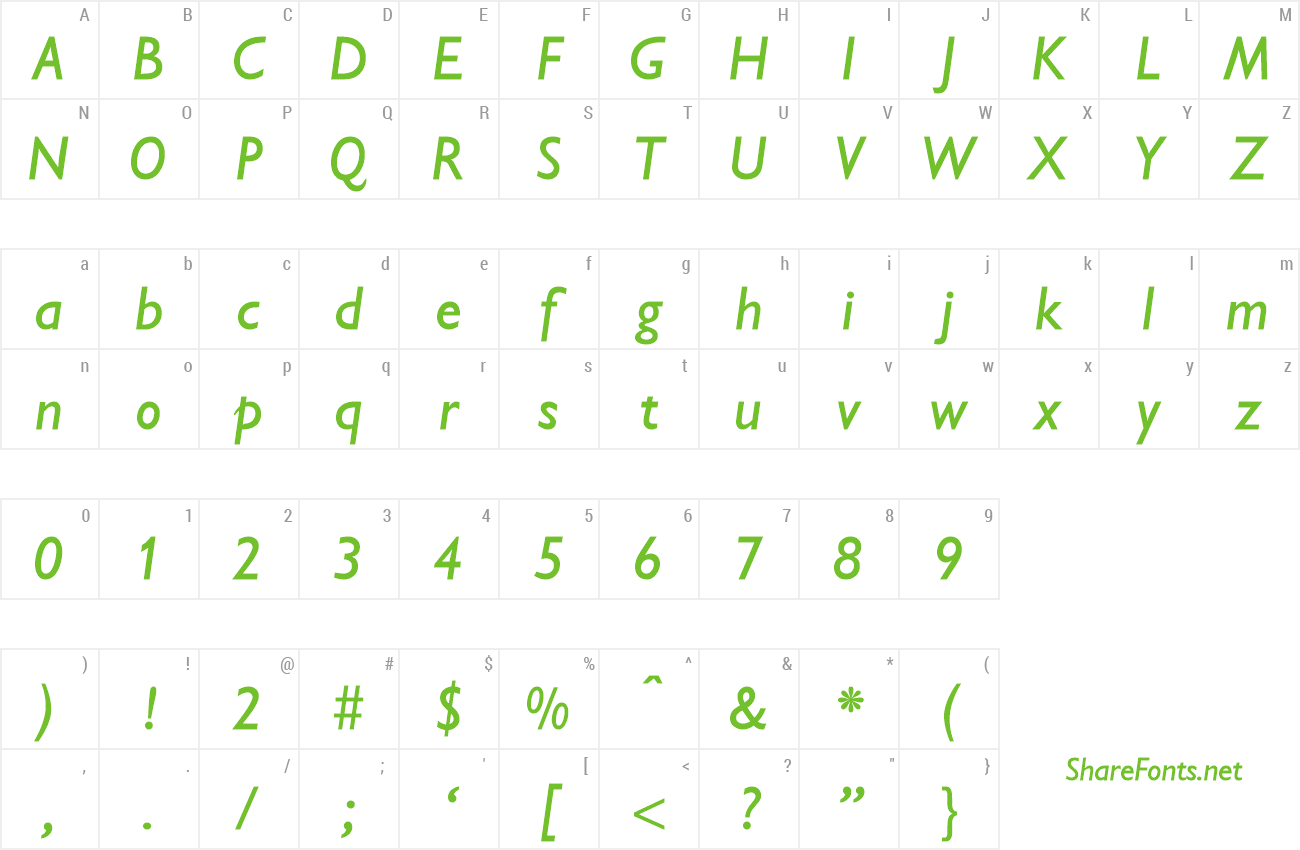
Download Gibson Font - Oct 12, 2022 format : Click on the below link to download its free version which can use free for personal use. For the full version and commercial purposes, please visit here date : If you want a typeface that would be suitable for every typeface of designs then here is the gibson font that is the humanist sans. Web gibson font free download. Gibson font is a modern humanist sans serif font family that was created in 2011 by rod mcdonald, patrick. In the case of commercial projects, you. Web gibson font free download. Web gibson sans serif font free for personal use. Web explore gibson designed by jamie chang, kevin king, patrick griffin, rod mcdonald at adobe fonts.
Web gibson font free download. Web gibson sans serif font free for personal use. Web explore gibson designed by jamie chang, kevin king, patrick griffin, rod mcdonald at adobe fonts. Web gibson font free download. If you want a typeface that would be suitable for every typeface of designs then here is the gibson font that is the humanist sans. A sans serif typeface with 16 styles, available from adobe fonts for. Click on the below link to download its free version which can use free for personal use. Oct 12, 2022 format : In the case of commercial projects, you.
Click on the below link to download its free version which can use free for personal use. In the case of commercial projects, you. Web gibson font free download. Oct 12, 2022 format : A sans serif typeface with 16 styles, available from adobe fonts for. Web gibson font free download. Web explore gibson designed by jamie chang, kevin king, patrick griffin, rod mcdonald at adobe fonts. For the full version and commercial purposes, please visit here date : If you want a typeface that would be suitable for every typeface of designs then here is the gibson font that is the humanist sans.
Web gibson font free download. A sans serif typeface with 16 styles, available from adobe fonts for. Gibson font is a modern humanist sans serif font family that was created in 2011 by rod mcdonald, patrick. Web gibson sans serif font free for personal use.
Web gibson font free download. In the case of commercial projects, you. Web explore gibson designed by jamie chang, kevin king, patrick griffin, rod mcdonald at adobe fonts. Web gibson sans serif font free for personal use. Web gibson font free download.
Web gibson sans serif font free for personal use. A sans serif typeface with 16 styles, available from adobe fonts for. In the case of commercial projects, you. For the full version and commercial purposes, please visit here date : Web explore gibson designed by jamie chang, kevin king, patrick griffin, rod mcdonald at adobe fonts.
Gibson Font Free Download
A sans serif typeface with 16 styles, available from adobe fonts for. In the case of commercial projects, you. If you want a typeface that would be suitable for every typeface of designs then here is the gibson font that is the humanist sans. Click on the below link to download its free version which can use free for personal.
Download GibsonBold Font Free Font Download
Web gibson sans serif font free for personal use. Web gibson font free download. In the case of commercial projects, you. Web gibson font free download. Gibson font is a modern humanist sans serif font family that was created in 2011 by rod mcdonald, patrick.
Gibson Font Collection (513782) Regular Font Bundles
Web explore gibson designed by jamie chang, kevin king, patrick griffin, rod mcdonald at adobe fonts. Web gibson font free download. For the full version and commercial purposes, please visit here date : Web gibson sans serif font free for personal use. Web gibson font free download.
Web Gibson Font Free Download.
A sans serif typeface with 16 styles, available from adobe fonts for. Web gibson font free download. If you want a typeface that would be suitable for every typeface of designs then here is the gibson font that is the humanist sans. Gibson font is a modern humanist sans serif font family that was created in 2011 by rod mcdonald, patrick.